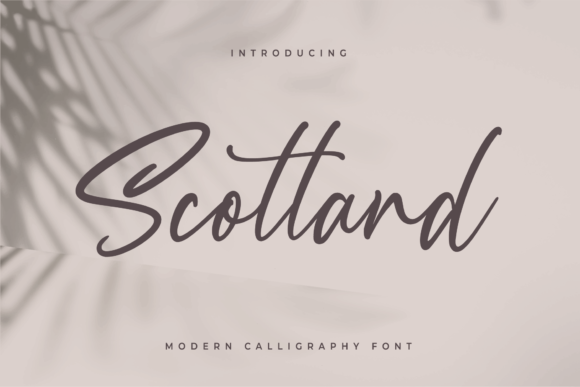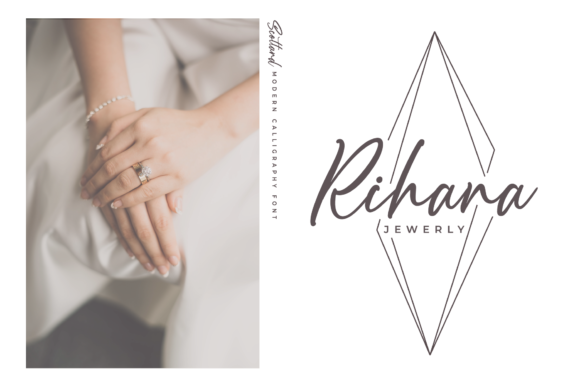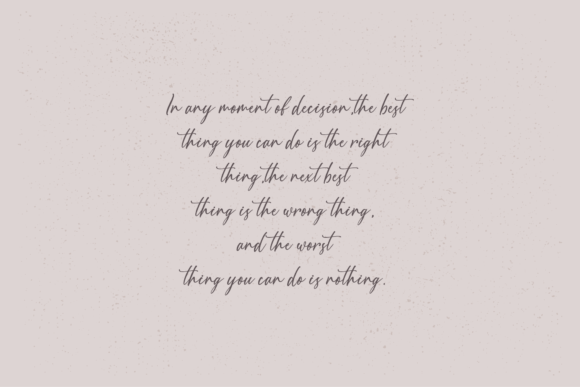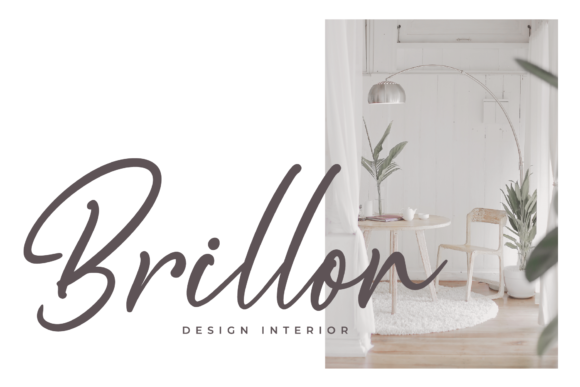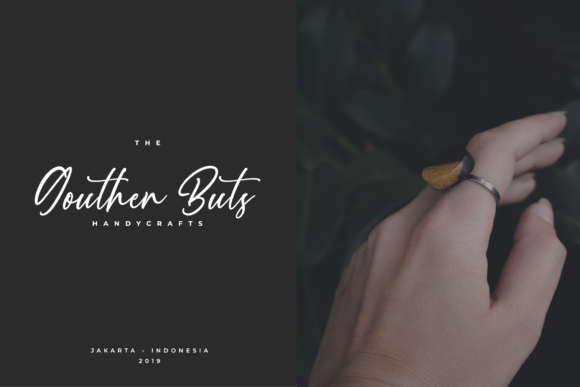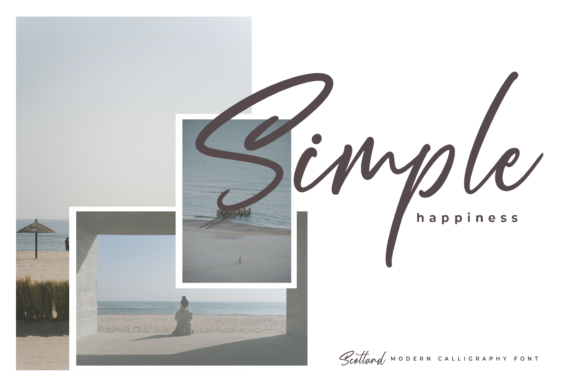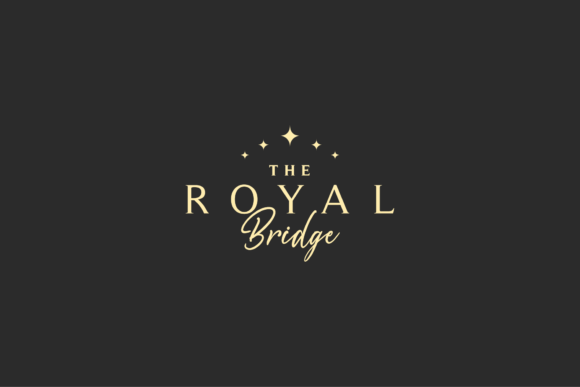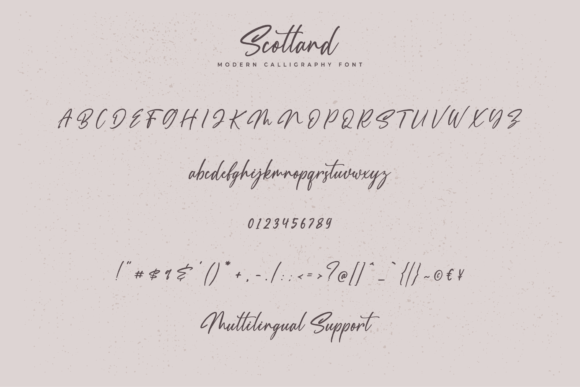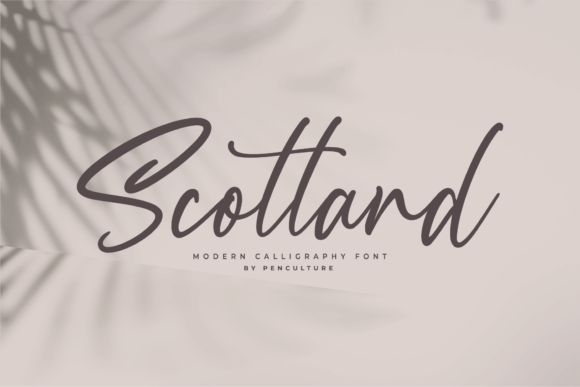
Scotland Font
About Scotland Font
Scotland beautifully merges sophistication and authenticity, delivering an undeniably charming script. Fall in love with its effortless charm, and turn any design project into a masterpiece!